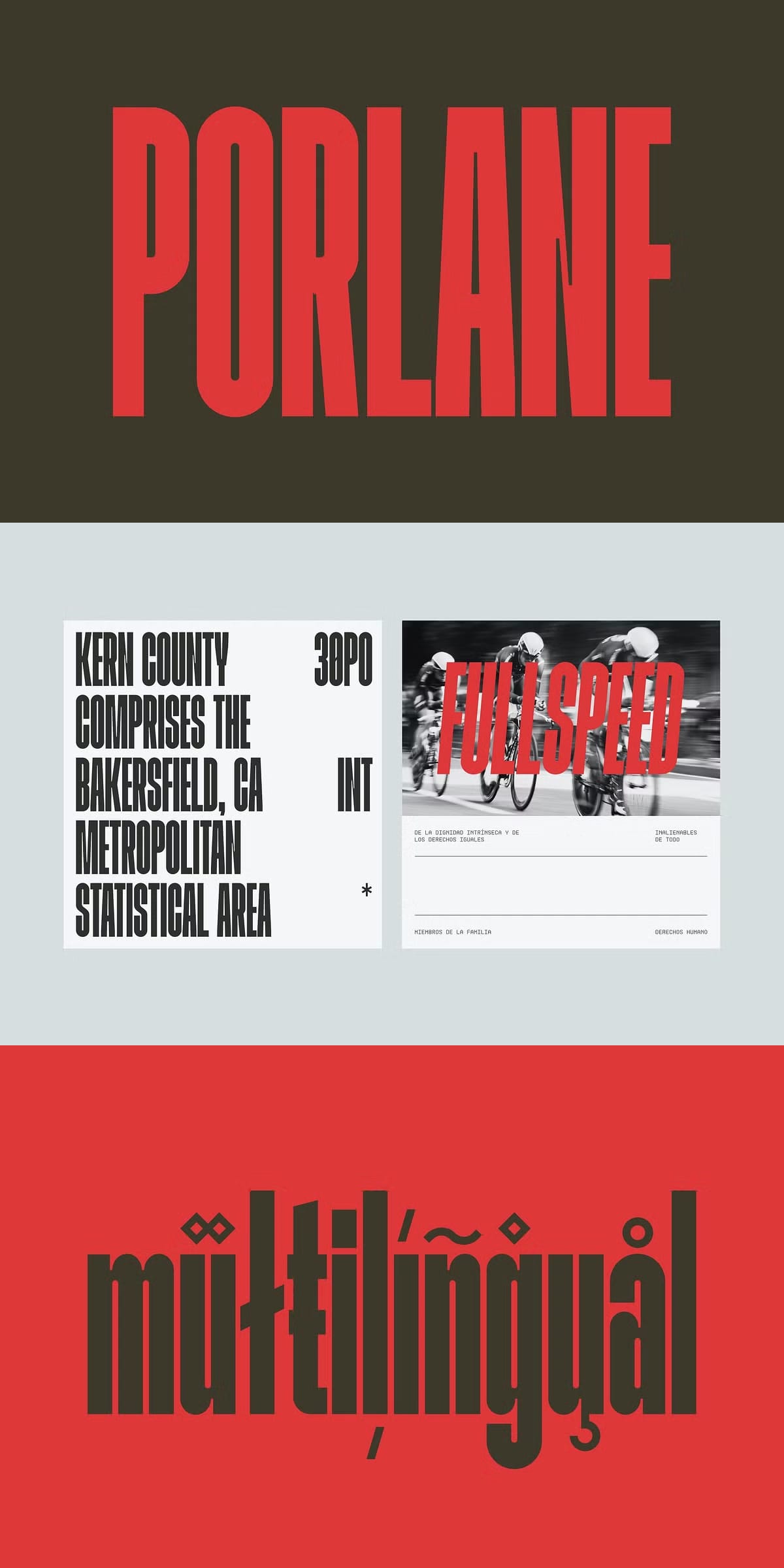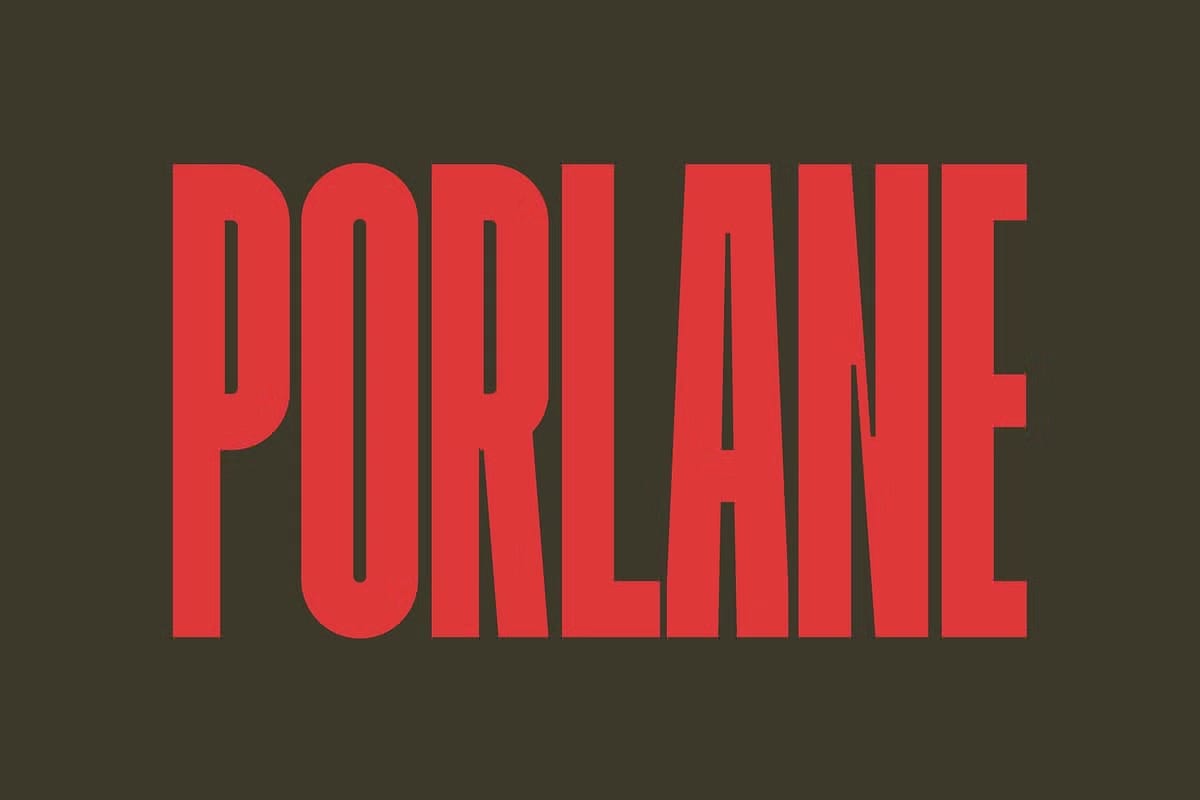
Elevate your design projects with Porlane, a meticulously crafted condensed sans-serif typeface that is perfect for bold titles and impactful displays. Designed with distinctive shapes, Porlane ensures high legibility while maintaining a contemporary aesthetic. This typeface is ideal for designers seeking to make a statement with their typography.
Key Features of Porlane
Porlane is not just another font; it is a versatile tool that enhances your creative expression. Here are the standout features that make Porlane a must-have in your design arsenal:
- Single Weight Design: Porlane comes in a single weight that balances boldness with elegance, making it suitable for a variety of applications.
- Legible and Expressive Shapes: The typeface features unique shapes that are both legible and expressive, ensuring your text stands out in any context.
- High X-Height: The high x-height of Porlane contributes to its readability, making it an excellent choice for both print and digital media.
- Tight Line Spacing: The tight line spacing allows for a compact design, making it perfect for headlines, posters, and other display uses.
- Comprehensive Glyph Catalog: Porlane’s glyph catalog provides an easy-to-compose system for Latin languages, ensuring versatility in your typography.
Why Choose Porlane for Your Design Projects?
Porlane is specifically designed for those who want to create bold and memorable designs. Its condensed structure makes it ideal for titles and headings, while its expressive shapes add a unique flair to your projects. Whether you are designing a modern website, an eye-catching advertisement, or a striking poster, Porlane delivers the impact you need.
Imagine using Porlane for branding projects, editorial layouts, or any creative endeavor that requires a strong typographic presence. Its contemporary design ensures that your work remains relevant and appealing to today’s audience.